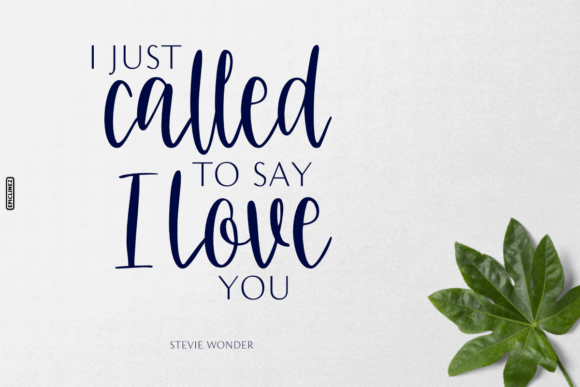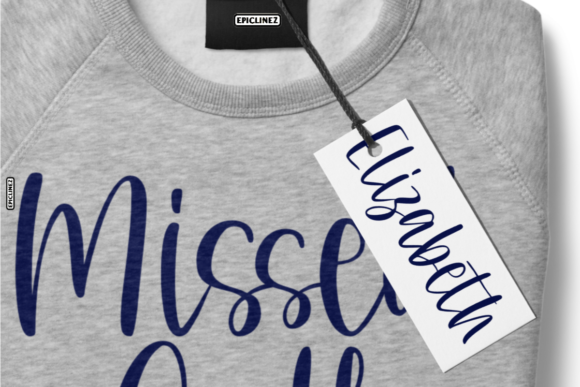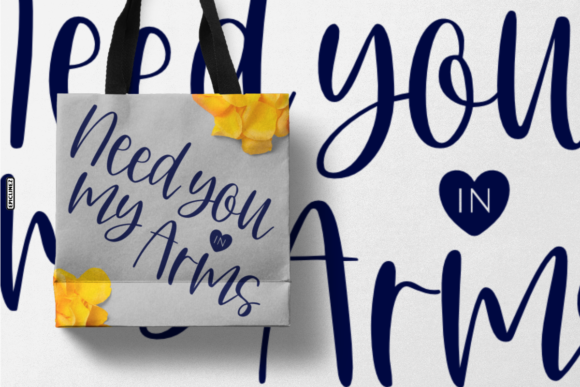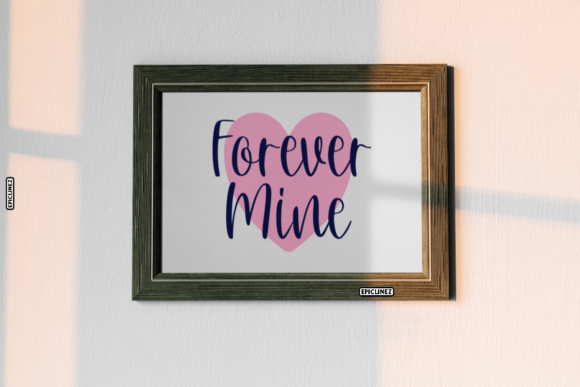
Introduction to Missed Call Font
Missed Call is a fun handwritten font.
Not too thin and not too thick, balanced and varied, this font was designed to enhance the beauty of your projects .